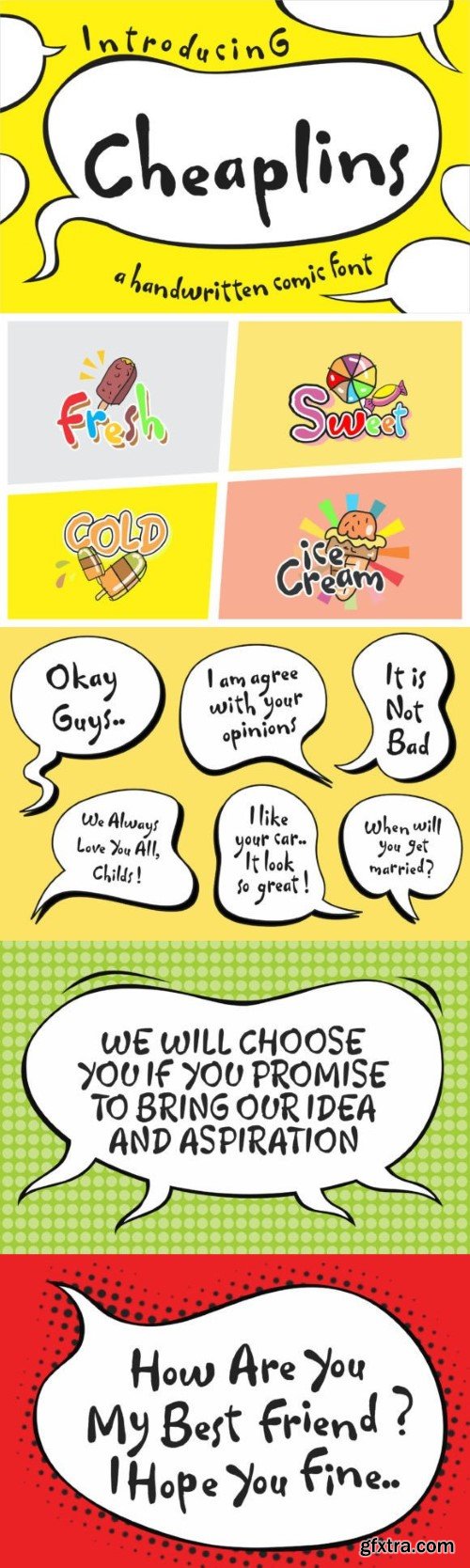
Cheaplins is a sweet and friendly, comic style handwritten font. Its natural and unique style makes it incredibly fitting to a large pool of designs. The only limit is your imagination!